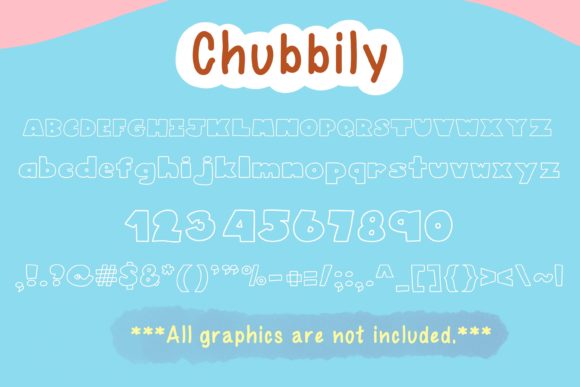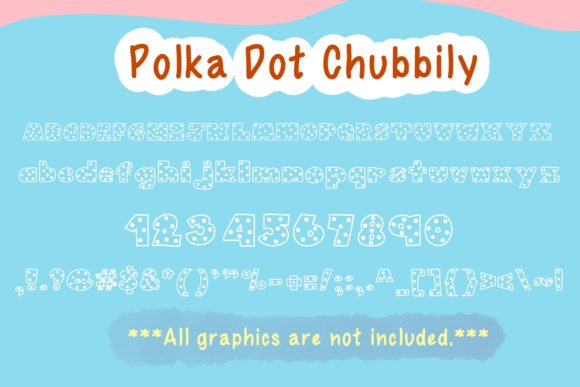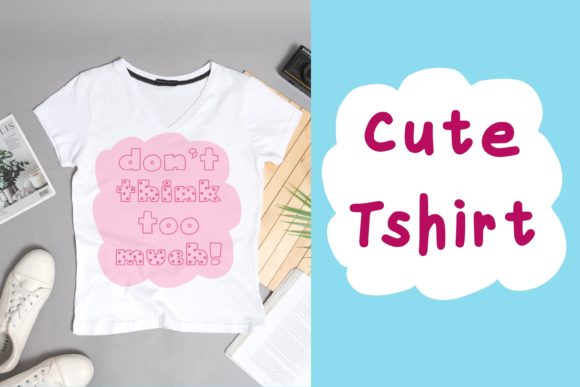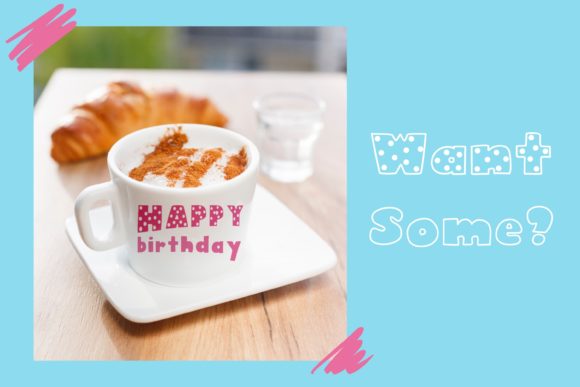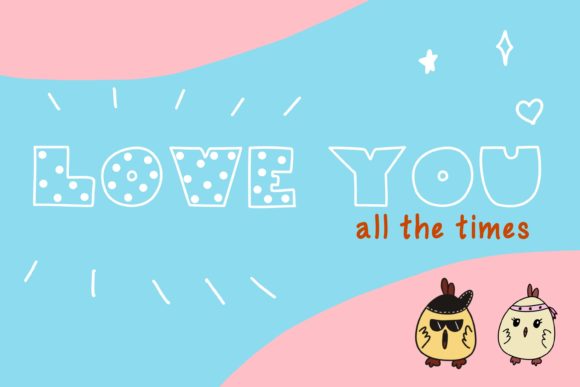
Introducing Chubbily and PolkaDot Chubbily Font: A Lovely Duo for Children-Themed Designs
Are you a designer or crafter looking for the perfect font to add a playful touch to your children-themed designs? Look no further than Chubbily and PolkaDot Chubbily, a lovely duo font that is sure to delight. This decorative and display font combination is perfect for creating fun and engaging designs, especially when paired with bright colors.
What is Chubbily and PolkaDot Chubbily Font?
Chubbily and PolkaDot Chubbily is a unique font duo that consists of two complementary fonts: Chubbily, a bold and playful font, and PolkaDot Chubbily, a whimsical font with a fun polka dot pattern. Both fonts are designed to work together seamlessly, creating a cohesive and visually appealing look that is perfect for children-themed designs.
Characteristics of Chubbily and PolkaDot Chubbily Font
So, what makes Chubbily and PolkaDot Chubbily font so special? Here are some of its key characteristics:
- Playful and whimsical: Both fonts have a playful and whimsical feel, making them perfect for children-themed designs.
- Bold and eye-catching: Chubbily font is bold and eye-catching, while PolkaDot Chubbily font adds a fun and quirky touch.
- Highly legible: Despite their playful nature, both fonts are highly legible, making them easy to read and understand.
- Versatile: Chubbily and PolkaDot Chubbily font can be used for a wide range of design projects, from invitations and posters to crafts and digital products.
Uses for Chubbily and PolkaDot Chubbily Font
So, what can you use Chubbily and PolkaDot Chubbily font for? The possibilities are endless! Here are some ideas to get you started:
- Children’s party invitations: Create fun and playful invitations that set the tone for a memorable party.
- Craft projects: Use Chubbily and PolkaDot Chubbily font to add a personal touch to your craft projects, such as scrapbooking, card making, and DIY decorations.
- Digital products: Create engaging digital products, such as printable art, planners, and worksheets, that are perfect for kids.
- Posters and flyers: Design eye-catching posters and flyers for children’s events, such as concerts, festivals, and workshops.
Tips for Using Chubbily and PolkaDot Chubbily Font
Here are some tips for using Chubbily and PolkaDot Chubbily font effectively:
- Pair with bright colors: Bright colors and playful fonts go hand-in-hand. Try pairing Chubbily and PolkaDot Chubbily font with bright colors to create a fun and playful look.
- Use for headlines and titles: Chubbily and PolkaDot Chubbily font are perfect for headlines and titles. Use them to add a playful touch to your design.
- Experiment with different combinations: Don’t be afraid to experiment with different font combinations. Try pairing Chubbily and PolkaDot Chubbily font with other fonts to create a unique look.
In conclusion, Chubbily and PolkaDot Chubbily font is a lovely duo font that is perfect for children-themed designs. With its playful and whimsical feel, bold and eye-catching design, and high legibility, this font combination is sure to delight designers and crafters alike. So, why not give it a try and see what amazing designs you can create?
Whether you’re a seasoned designer or a crafty DIY enthusiast, Chubbily and PolkaDot Chubbily font is a great addition to your font collection. So, go ahead and get creative with this lovely font duo!